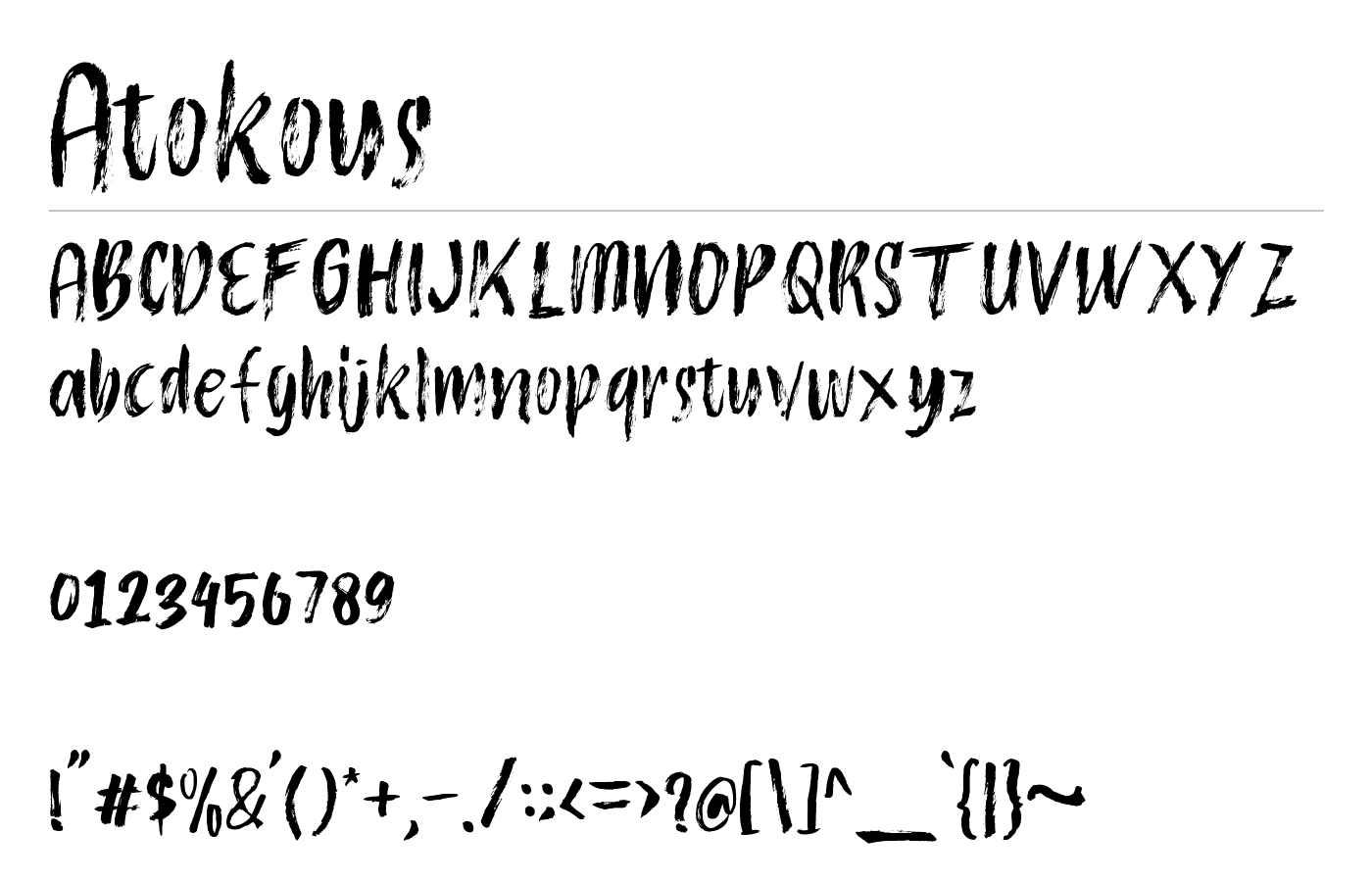
Atokous is a bold, brush-stroke style font that exudes raw energy and creativity, making it perfect for projects needing a hand-crafted, artistic vibe. Its rough texture and irregular shapes give it a lively, informal feel that works well for posters, logos, and branding that want to stand out with personality and a sense of spontaneity. This font shines in expressive, creative contexts where a dynamic and edgy look is desired.
Atokous Font
About Atokous Font